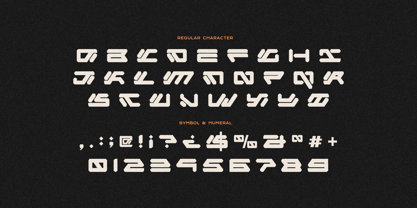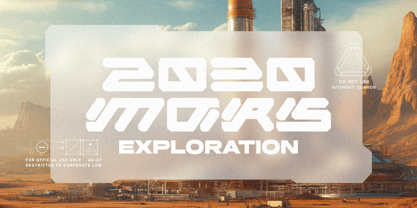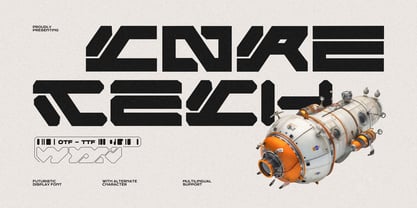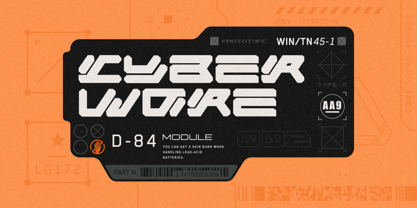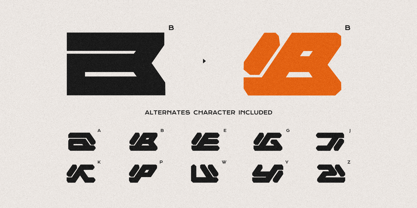
Core Tech
by Imoodev
The Core Tech Font Family was designed by Aulia Savira Putri and published by Imoodev. Core Tech contains 1 styles.
Launch your designs into the future with Core Tech, a powerful and assertive display font built for the high tech world. Drawing inspiration from cyberpunk aesthetics, its geometric letterforms, sharp edges, distinctive stencil style cuts, and modular construction. This creates a strong sense of structure and a modern, mechanical feel, make it the perfect choice for projects that demand a futuristic tech edge.
Infuse your projects with a sleek, futuristic edge. This is the ideal solution for crafting dynamic logos for tech companies, creating immersive branding for gaming studios, and designing cinematic posters that capture a sci-fi or cyberpunk mood. Elevate your digital presence with captivating website headers, intuitive interfaces for games and films, and powerful on screen graphics for streaming.